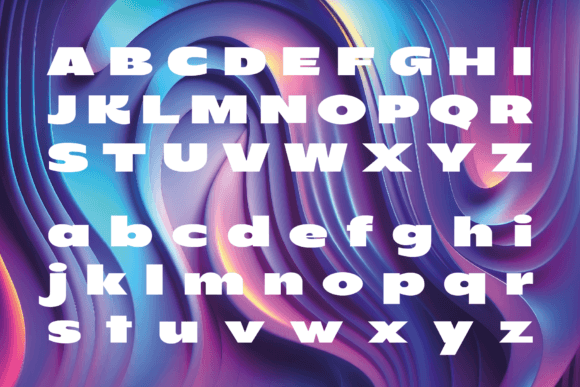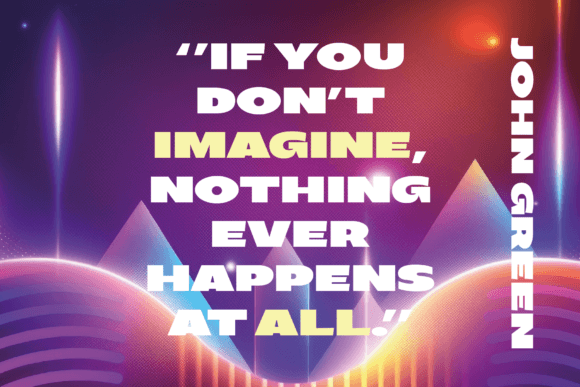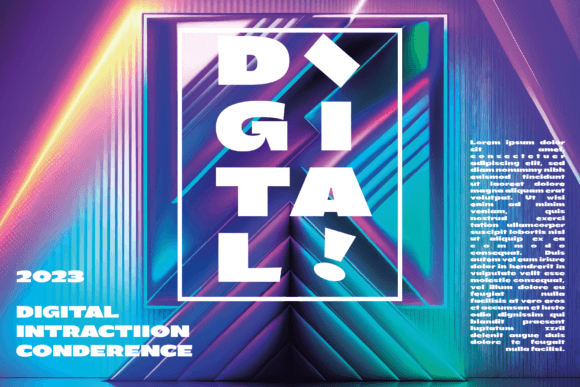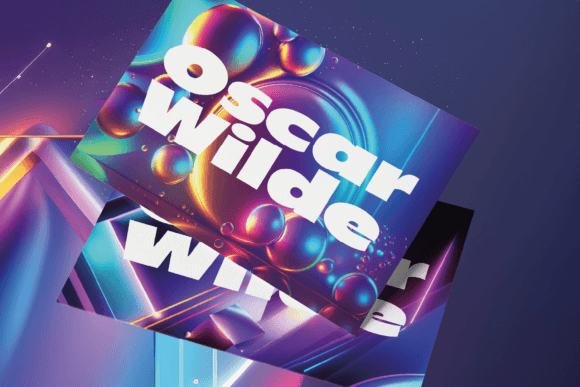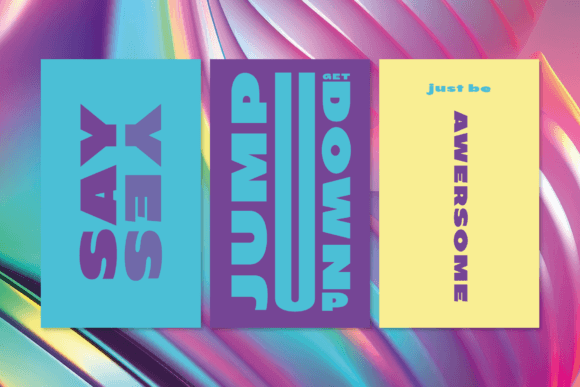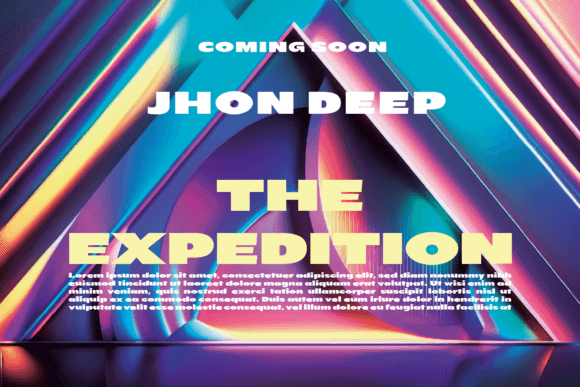
Introduction to Citrogen Font
Remember the moment when a design sparks creativity, and everything falls into place? That’s exactly what happens when you work with the right font. For designers, having a reliable design resource like the Citrogen Font can be a game-changer. With its bold and clean lines, Citrogen Font is the perfect choice for making a powerful statement or grabbing the attention of your audience.
Whether you’re working on a creative project, creating packaging for a new product, or developing a brand identity, Citrogen Font is an excellent choice. Its modern design and high-quality appearance make it a valuable addition to any designer’s toolkit. Plus, with a transparent background, you can easily integrate it into your design without worrying about distractions.
Key Features of Citrogen Font
- High-quality, professional design suitable for various creative projects
- Includes a variety of font styles and weights for flexibility
- Perfect for use in graphic design, digital art, and other creative endeavors
Honest Review: Citrogen Font
As a designer, I’m always on the lookout for high-quality design resources that can elevate my creative projects. Recently, I stumbled upon the Citrogen Font, and I was excited to give it a try.
- The Citrogen Font is incredibly versatile, making it perfect for a wide range of creative projects.
- The transparent background makes it easy to use in various design contexts.
- The font is well-designed, with clean lines and a modern aesthetic that’s sure to impress.
- The font may not be as customizable as some other design resources.
Overall, I’m impressed with the Citrogen Font. It’s a solid addition to any designer’s toolkit, and I would definitely recommend it for personal or small-scale creative projects. However, it’s essential to be aware of the limitations and use it responsibly.
The Citrogen Font is perfect for use in a variety of design projects, including social media graphics, blog posts, and website design. It is also ideal for use in presentations and documents where a high-quality, creative font is needed.
Tips for Getting the Most Out of the Citrogen Font
To get the most out of the Citrogen Font, be sure to use it in conjunction with other high-quality design elements. Experiment with different font sizes, colors, and styles to create a unique and eye-catching design. The Citrogen Font is a versatile design resource that can be used in a variety of creative projects.
Alternatives to Citrogen Font
Fontin is a high-quality sans-serif font suitable for various creative projects, including logos, icons, and design resources. Its clean and modern design makes it perfect for web design, graphic design, and digital art. Fontin can be downloaded for free, and it features a transparent background, allowing for seamless integration with any design. When to use: Fontin is ideal for projects requiring a clean, minimalist aesthetic.
Comparison to Citrogen Font: Fontin has a more modern and sleek design compared to Citrogen Font, which has a more vintage feel. Fontin is also more versatile and can be used for a wider range of design projects.
Open Sans is a popular and highly versatile font that is perfect for various design projects, including digital art, graphic design, and web design. Its clean and modern design makes it suitable for a wide range of creative projects. Open Sans features a transparent background and can be downloaded for free. When to use: Open Sans is ideal for projects requiring a clean and professional aesthetic.
Can I use the Citrogen Font for web design?